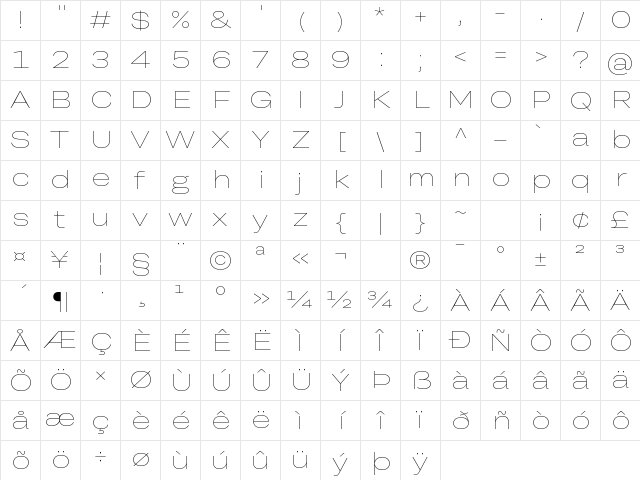
Grtsk Tera Thin is a composed and adaptable typeface that performs quietly and consistently across a wide range of design contexts. Its slender proportions lend an understated elegance to any composition.